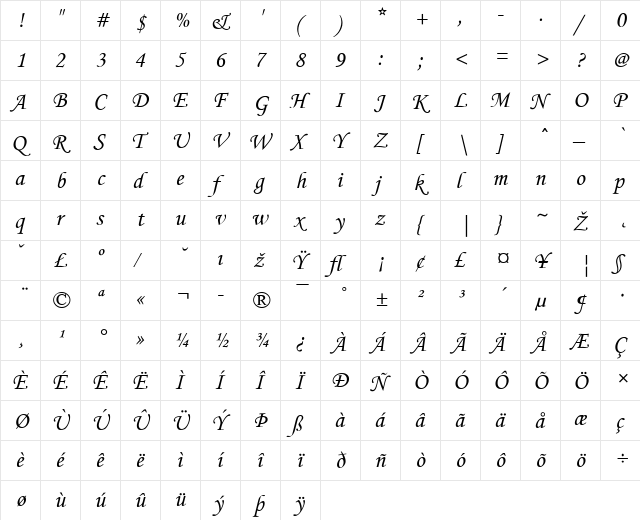
Corsiva Regular
Design Context for Corsiva Typeface
Corsiva takes a measured approach to typography — its balanced proportions and neutral character make it a reliable workhorse for both digital and print work.